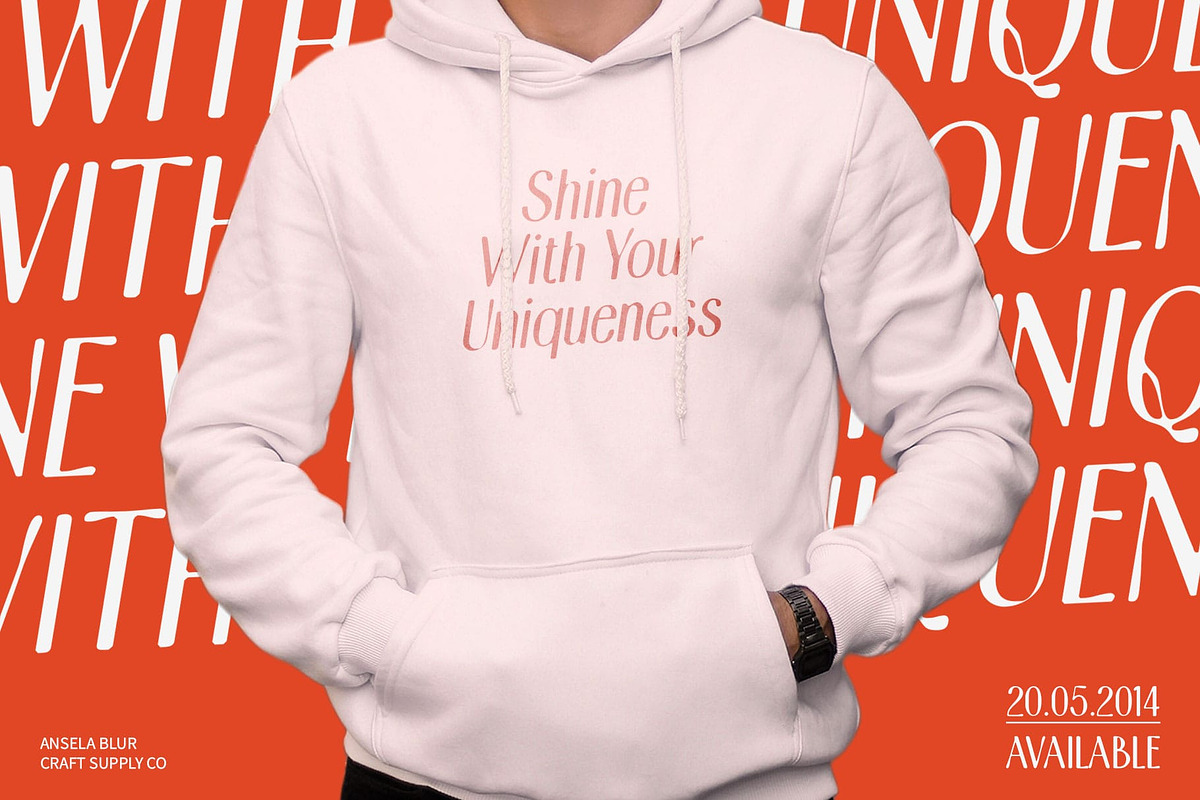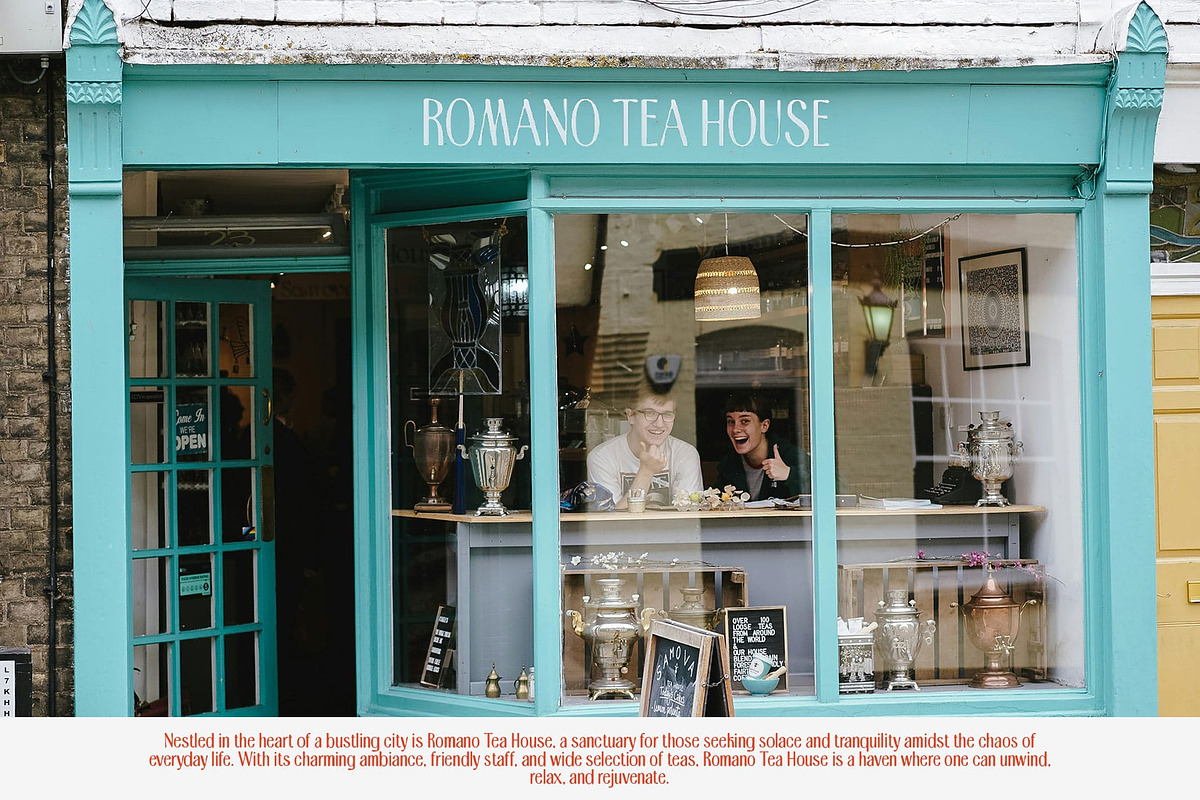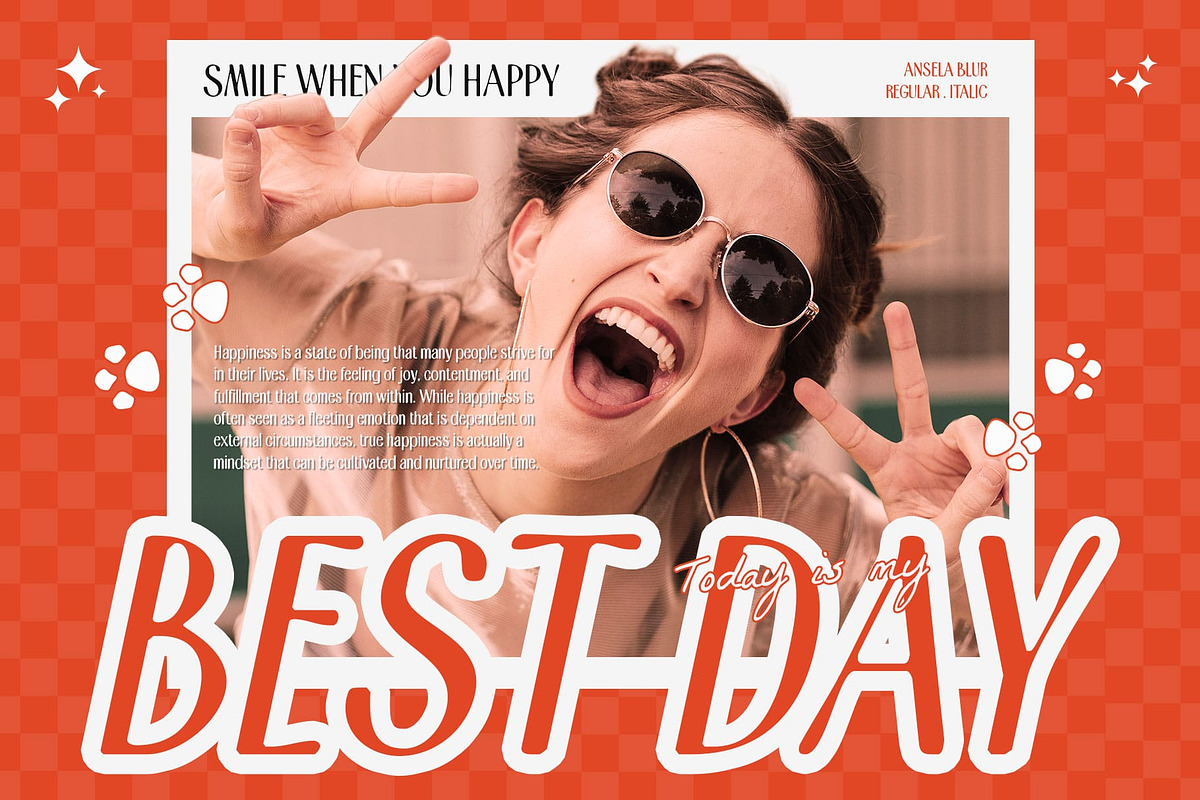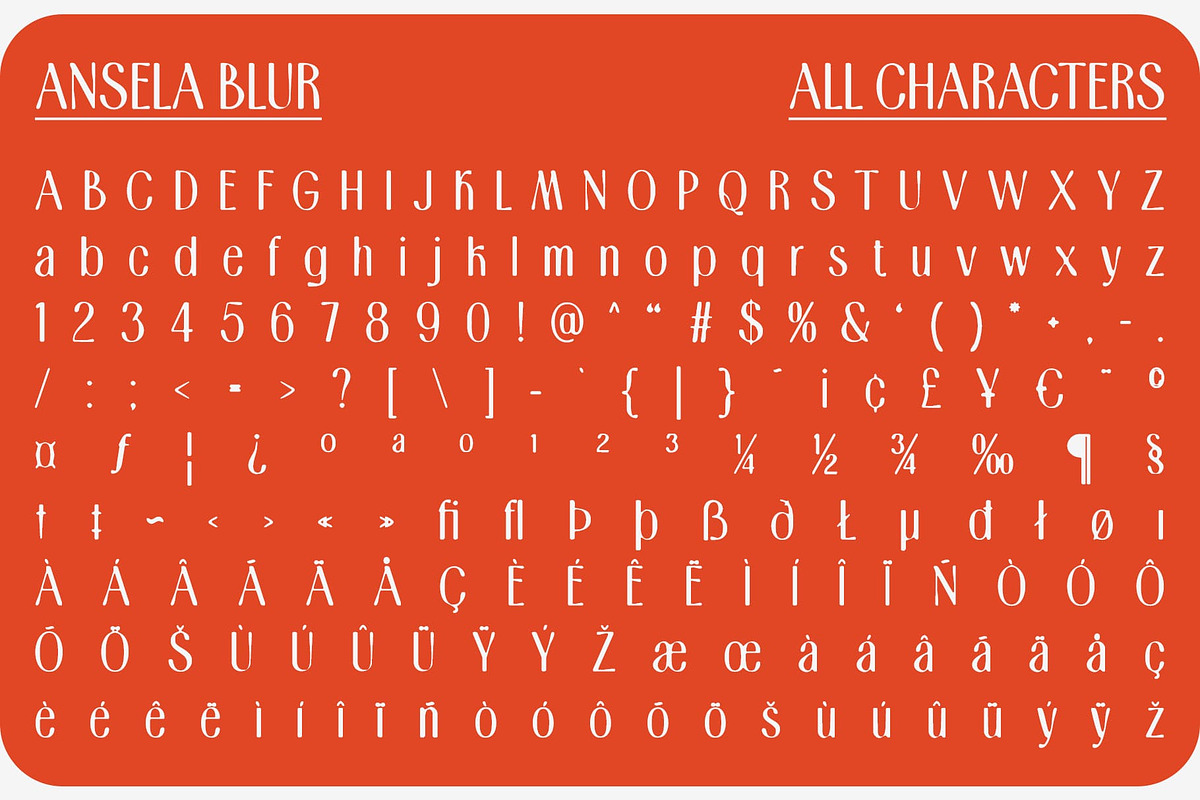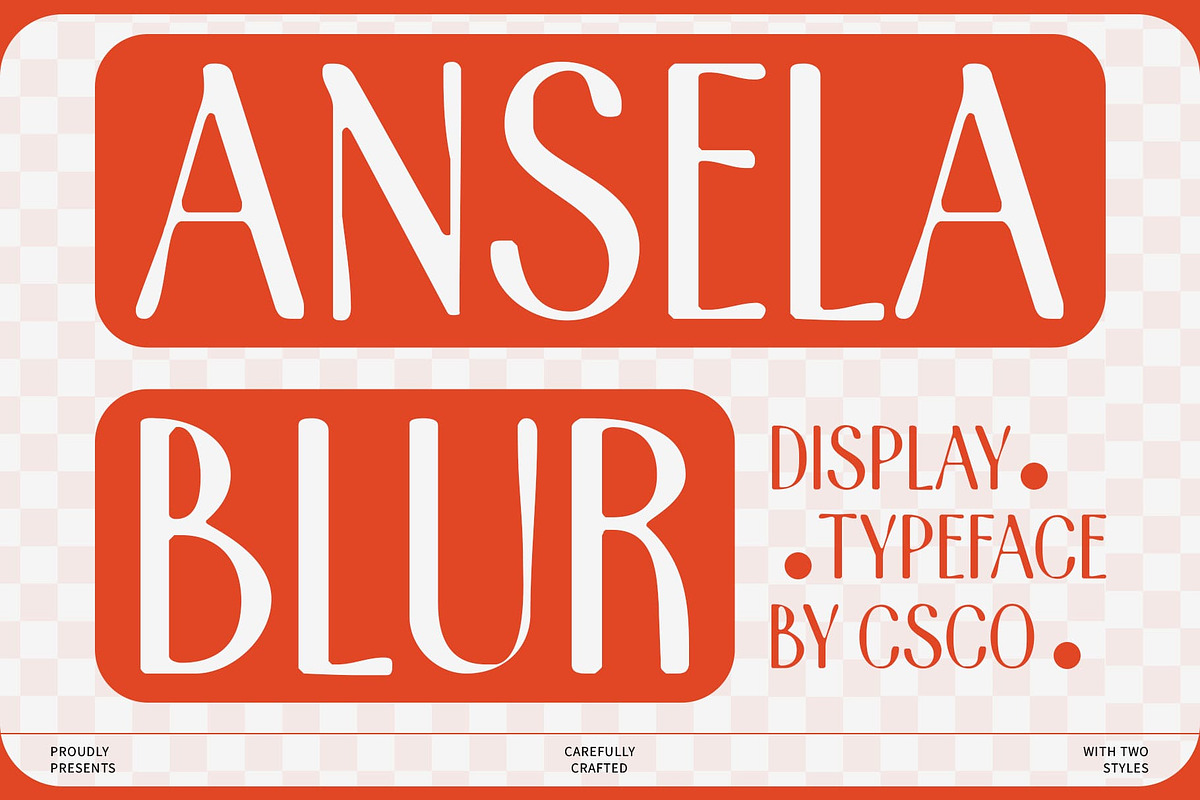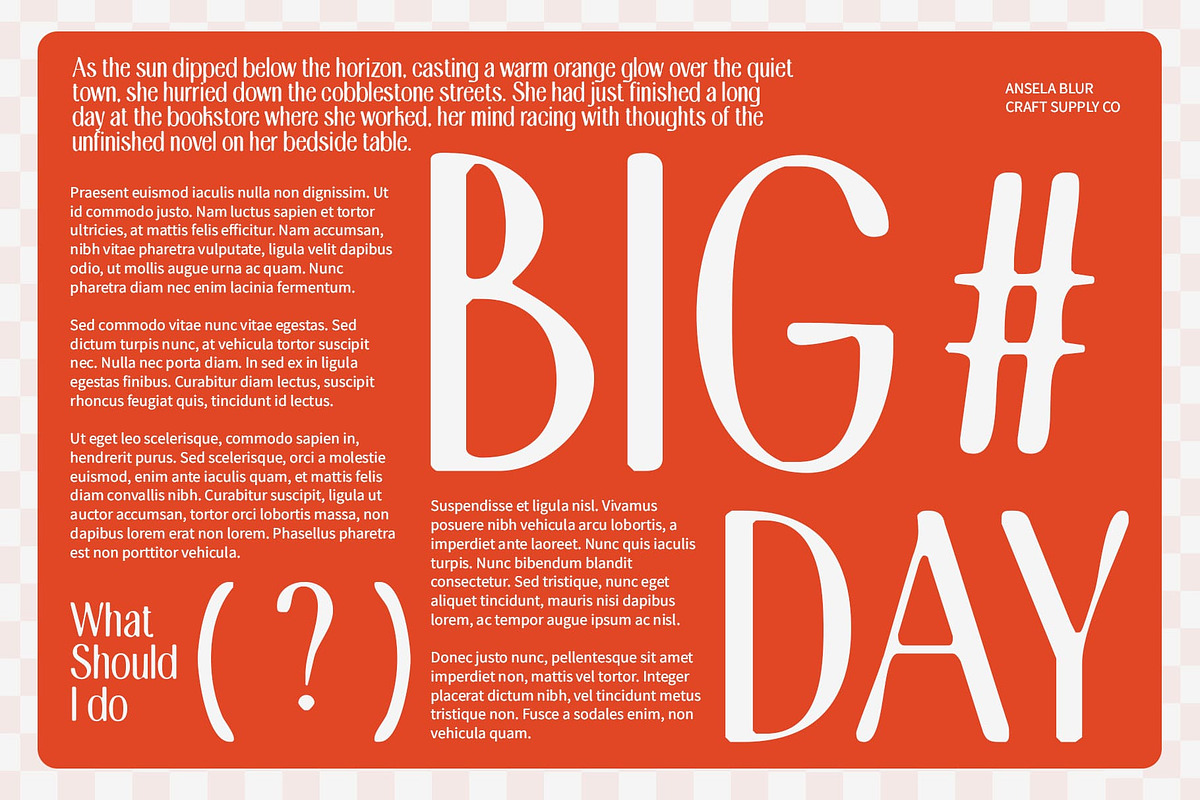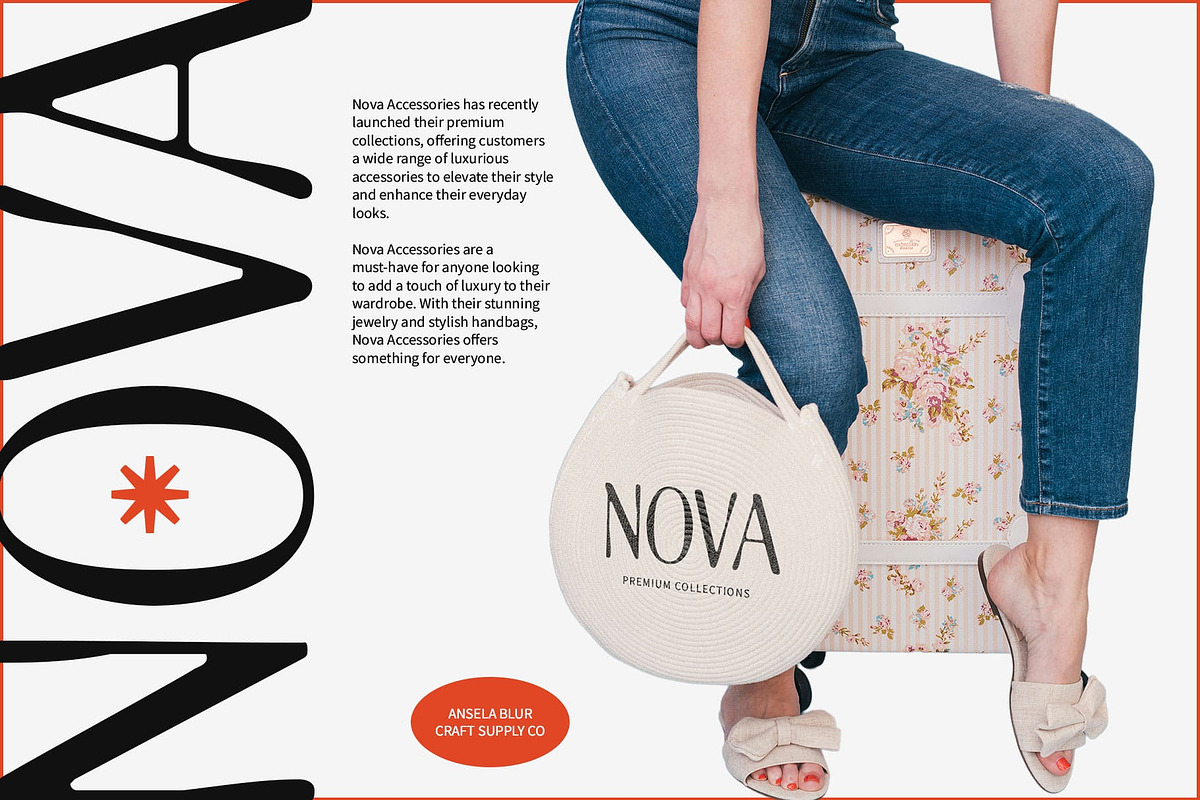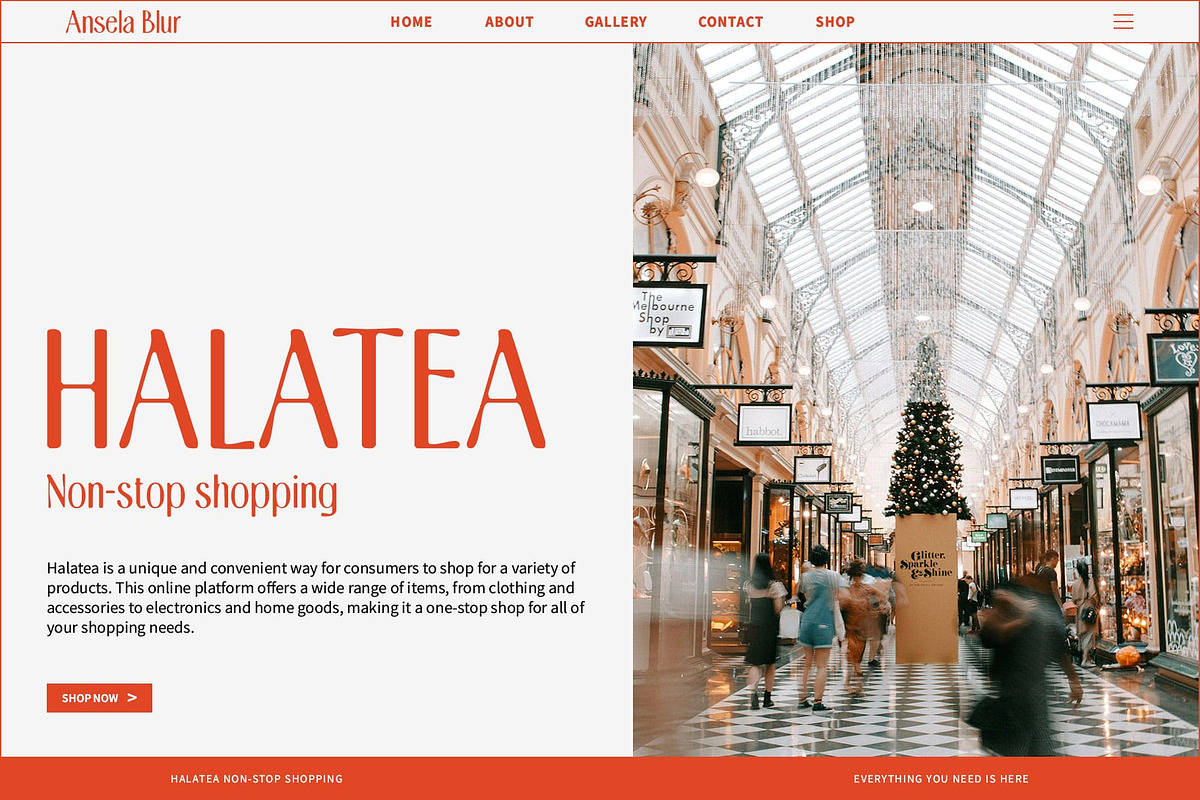
Ansela Blur
Ansela Blur: Sleek and Modern Sans Serif Condensed Minimalist Font
Minimalist Sans Serif with Blur Effect
Ansela Blur is a sans serif condensed minimalist font that offers a sleek and modern aesthetic, enhanced by a subtle blur effect. Its clean lines and efficient use of space make it perfect for elegant and sophisticated designs.
Space-Efficient Design
The condensed form of Ansela Blur ensures that you can fit more text into smaller spaces without sacrificing readability. This makes it an ideal choice for high-end branding, sophisticated posters, and modern web layouts where space efficiency is key.
Sophisticated Minimalism
With its minimalist design, Ansela Blur adds a touch of sophistication to any project. The simplicity of its sans serif structure is elevated by the blur effect, introducing a subtle artistic element that enhances the overall visual appeal.
Blend of Clarity and Creativity
Ansela Blur excels in projects that require a blend of clarity and creative flair. Whether used for elegant branding, refined posters, or contemporary web designs, this font delivers a perfect balance of readability and artistic expression.
Elevate Your Designs with Ansela Blur
Choose Ansela Blur to bring a sleek, modern, and sophisticated touch to your design projects. Its minimalist aesthetic combined with a unique blur effect ensures that your work stands out with clarity and creative elegance.
- Ansela Blur Regular
- Ansela Blur Italic